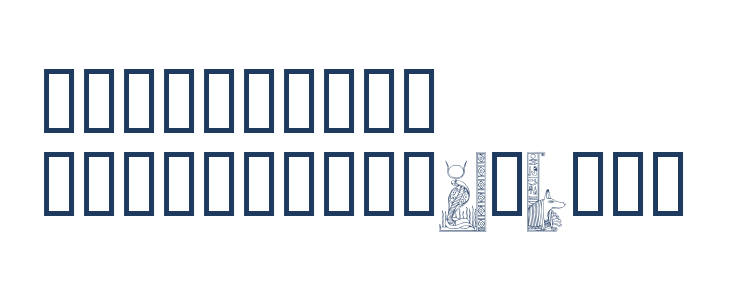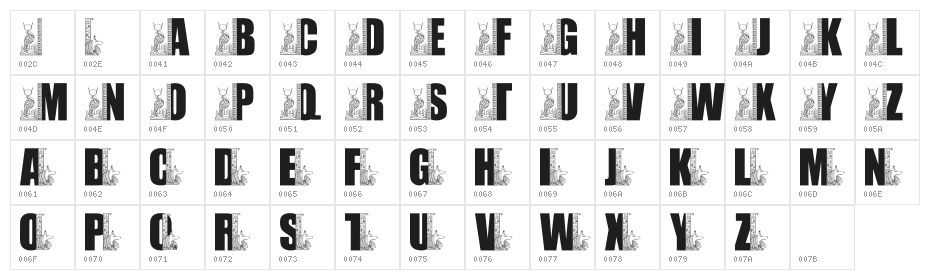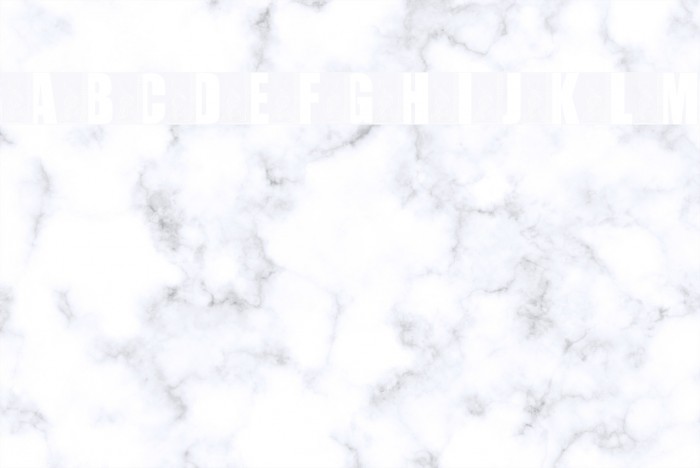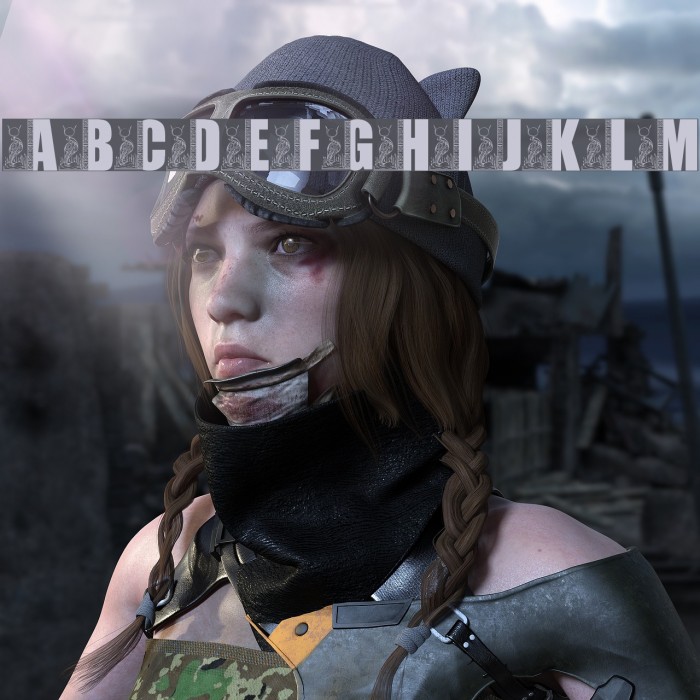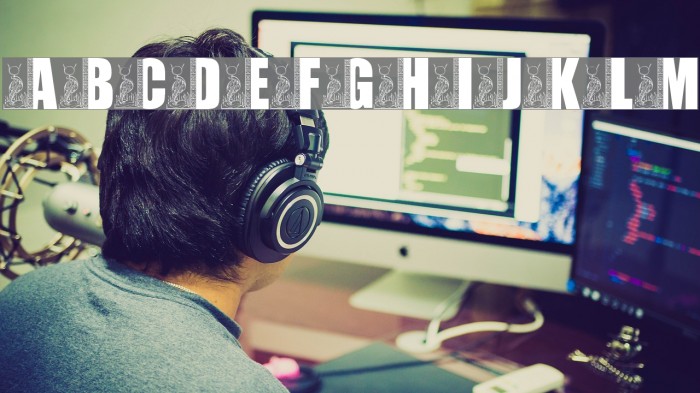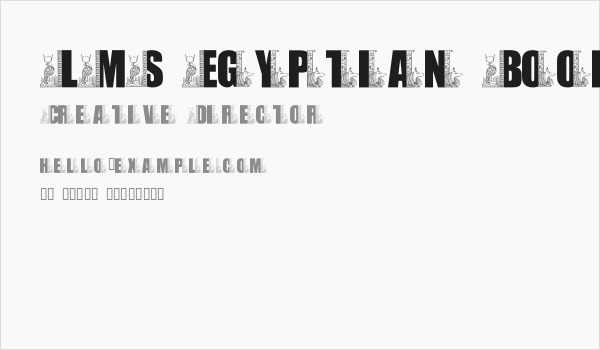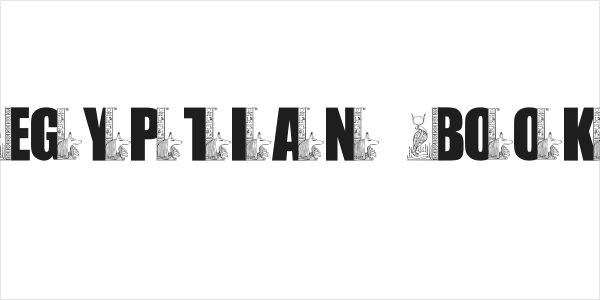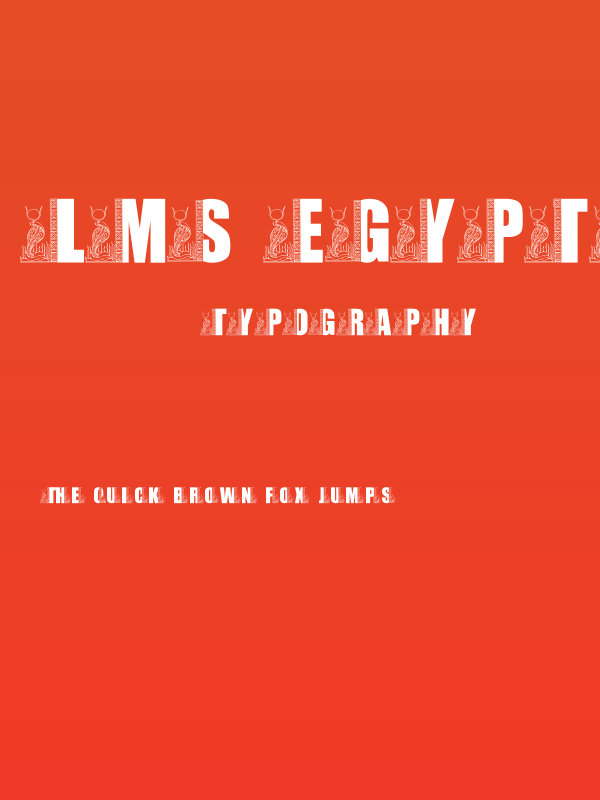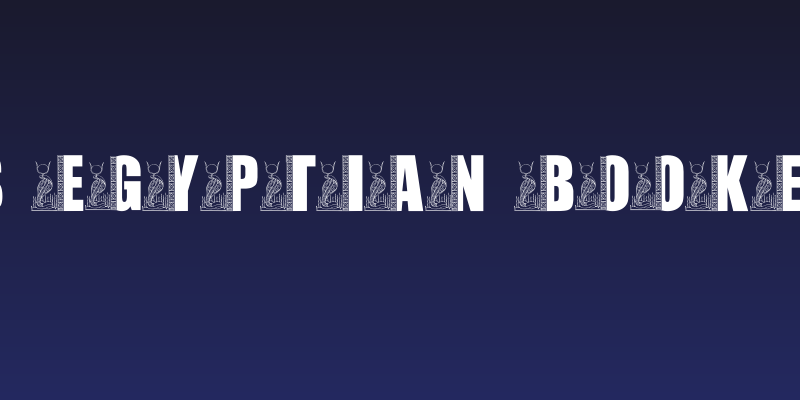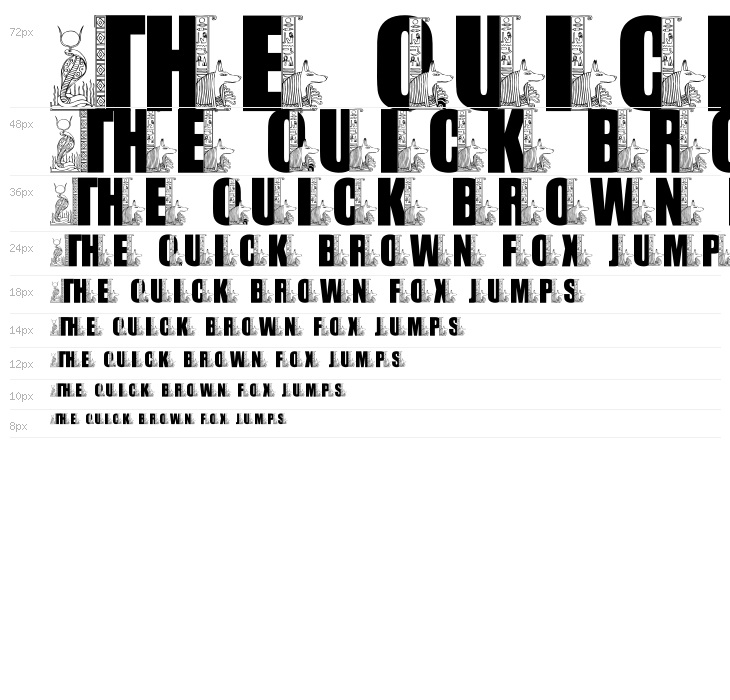
LMS Egyptian Bookends Font
LMS Egyptian Bookends Description
This font features a unique and decorative style, incorporating Egyptian-themed illustrations alongside bold, uppercase letters. Each character is framed with intricate designs that evoke ancient Egyptian art, creating a striking visual impact. The letters are bold and solid, providing a strong contrast against the detailed artwork. This font is particularly suited for creative projects that require a historical or exotic theme, offering a distinctive look that stands out. The absence of lowercase letters and numbers suggests a focus on decorative display rather than practical text usage.
| Proposed Projects | Ideal for themed posters, book covers, event invitations, or any project requiring an exotic, historical aesthetic. |